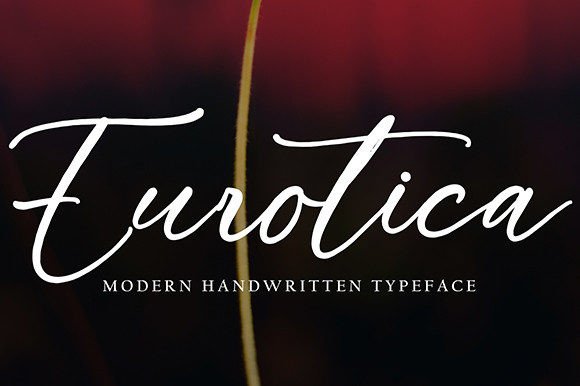
Embark on an artistic adventure with Eurotica, the captivating script font family that breathes life into your creative endeavors. Its enchanting strokes dance across the page, evoking a sense of whimsy and wonder that will leave you spellbound. Dive into a world where imagination knows no bounds, where Eurotica's graceful curves and playful flourishes transform ordinary words into captivating works of art.
Crafted with meticulous attention to detail, Eurotica embodies the essence of elegance and sophistication. Its diverse collection of styles, from the delicate charm of Eurotica Regular to the bold allure of Eurotica Bold, empowers you to express your unique voice and style. Whether you're crafting a heartfelt letter, designing a striking logo, or creating a captivating blog header, Eurotica provides the perfect canvas to showcase your creativity.
Experience the transformative power of Eurotica as it effortlessly elevates your designs. Its versatility knows no bounds, seamlessly adapting to a myriad of projects, including eye-catching posters, vibrant branding, and enchanting invitations. Allow Eurotica to be your muse, inspiring you to create designs that captivate and enthrall your audience.
With Eurotica at your fingertips, the possibilities are endless. Unleash your inner artist and let your imagination soar. Transform your creative visions into tangible masterpieces that resonate with your audience and leave a lasting impression. Embrace the magic of Eurotica and embark on a journey of artistic exploration that will redefine your creative boundaries.
Dare to be different. Dare to be bold. Dare to embrace Eurotica, the font family that ignites your imagination and sets your creativity ablaze. Experience the allure of Eurotica today and let your designs speak volumes.